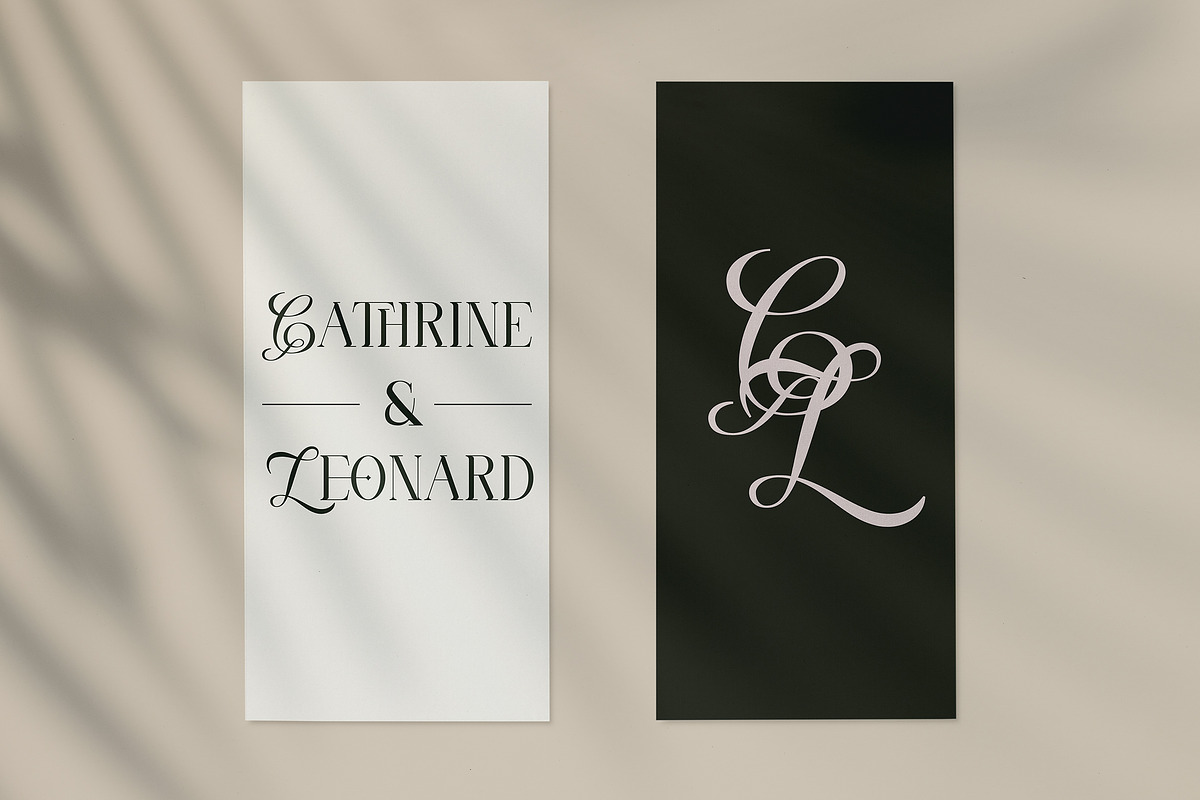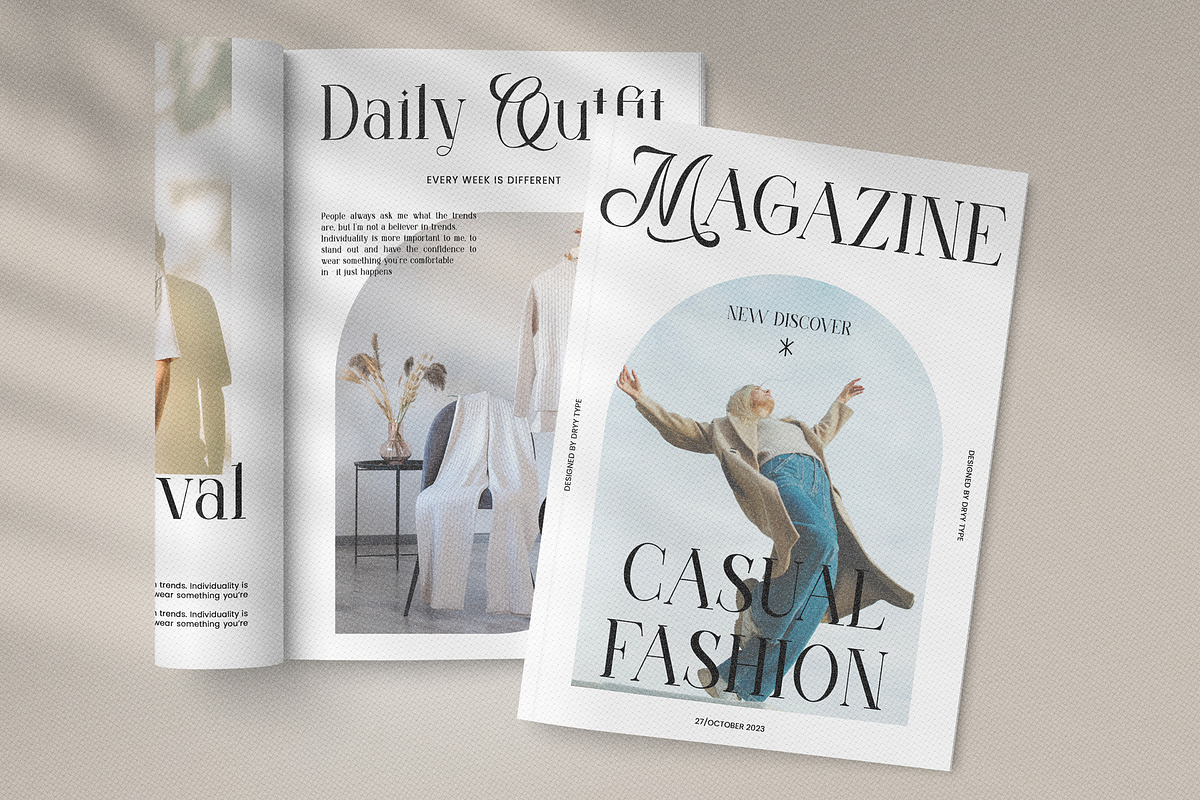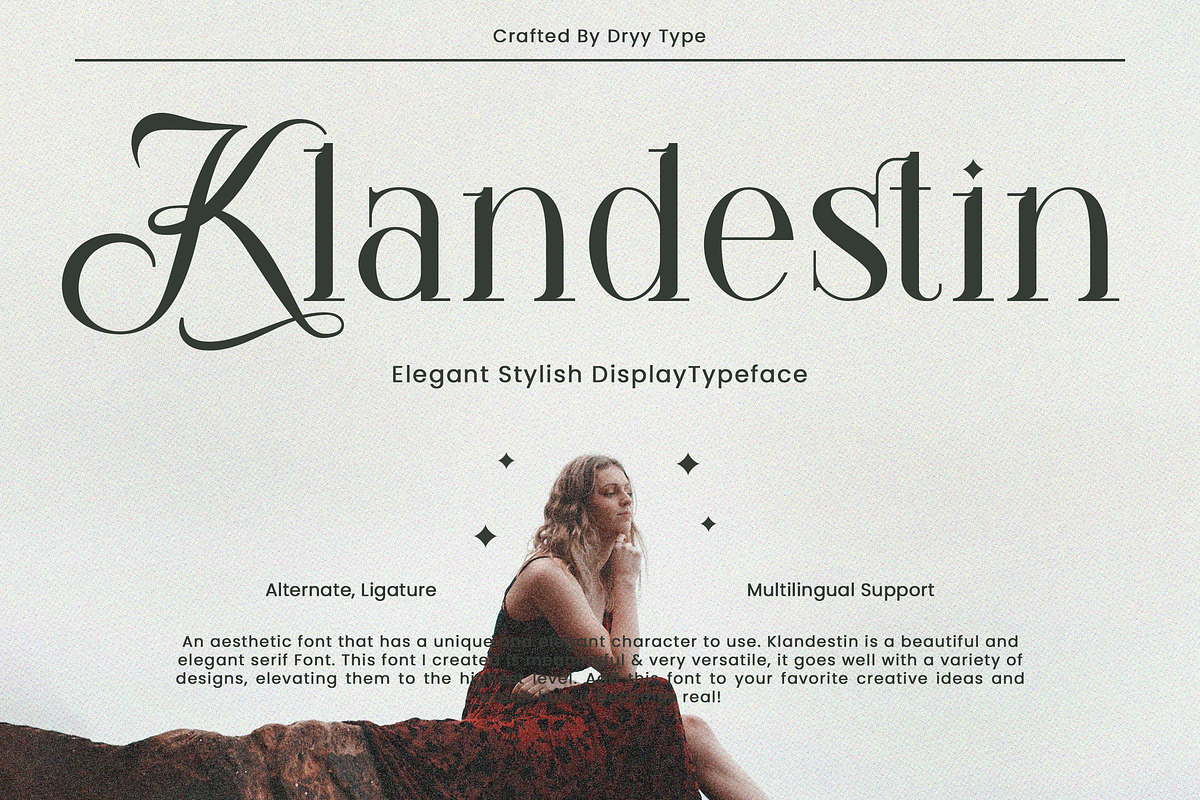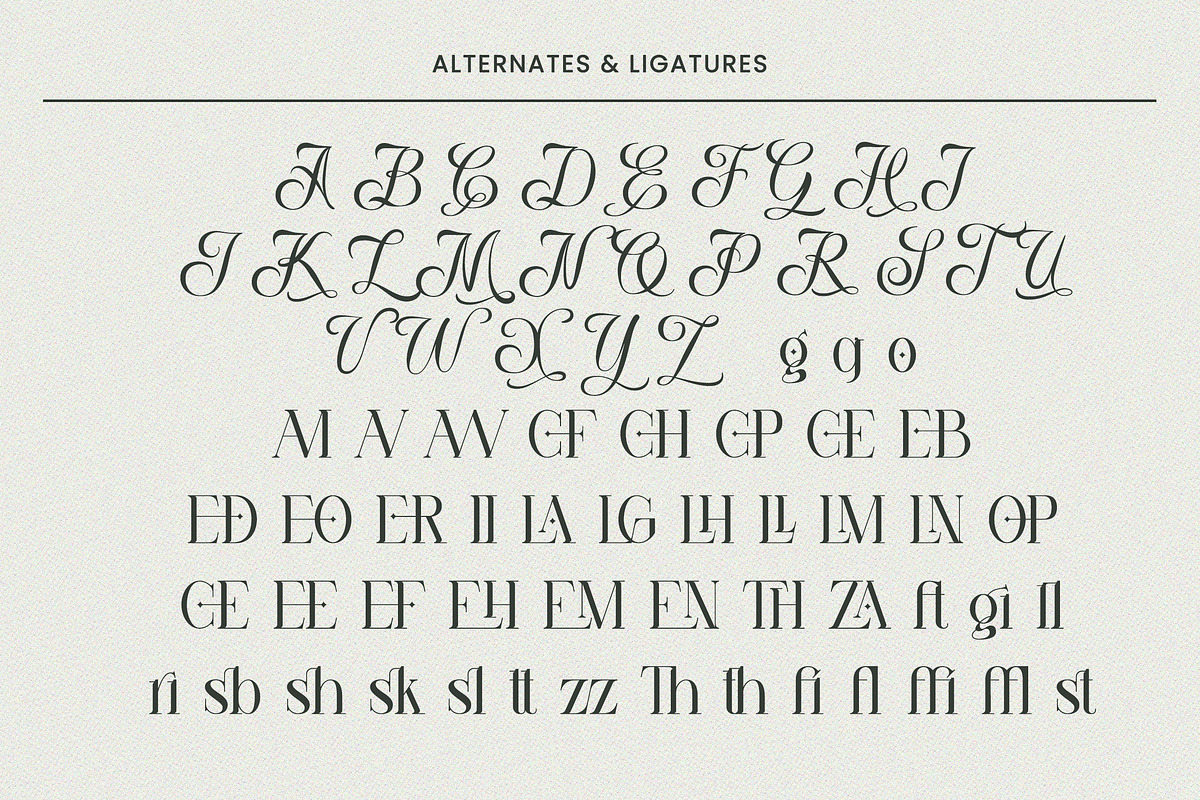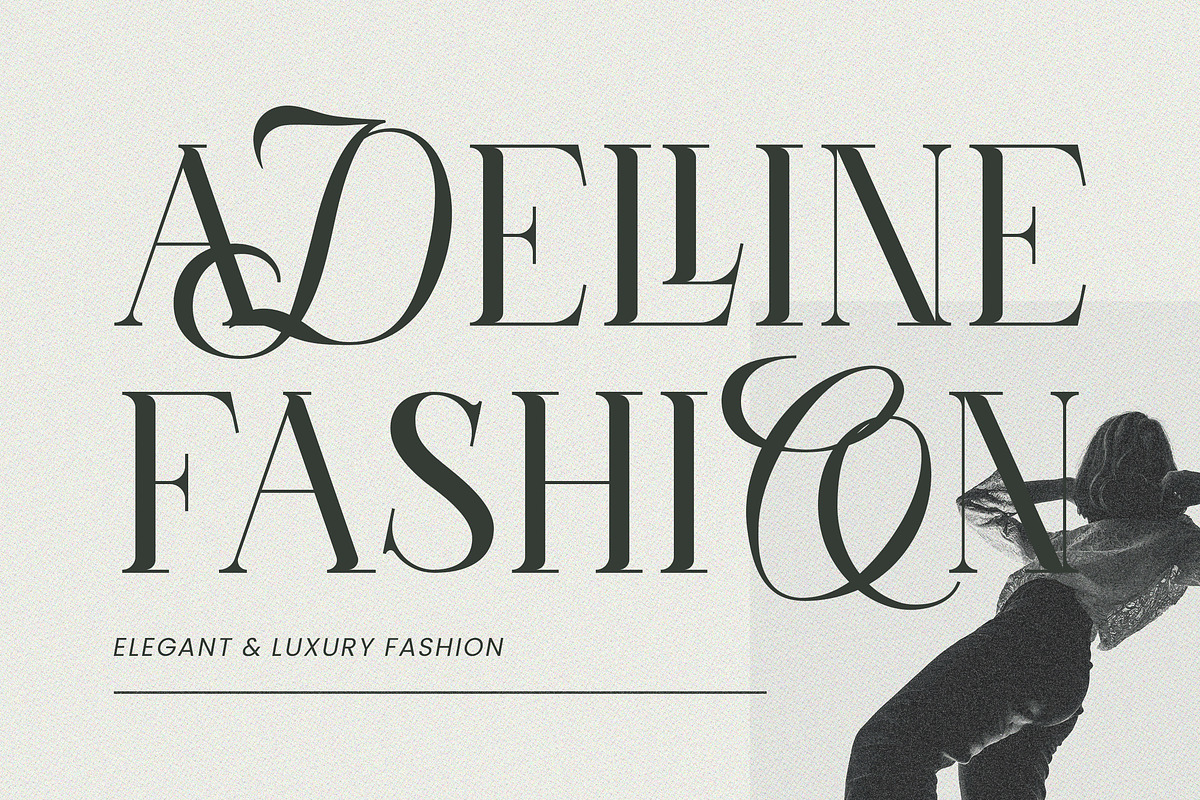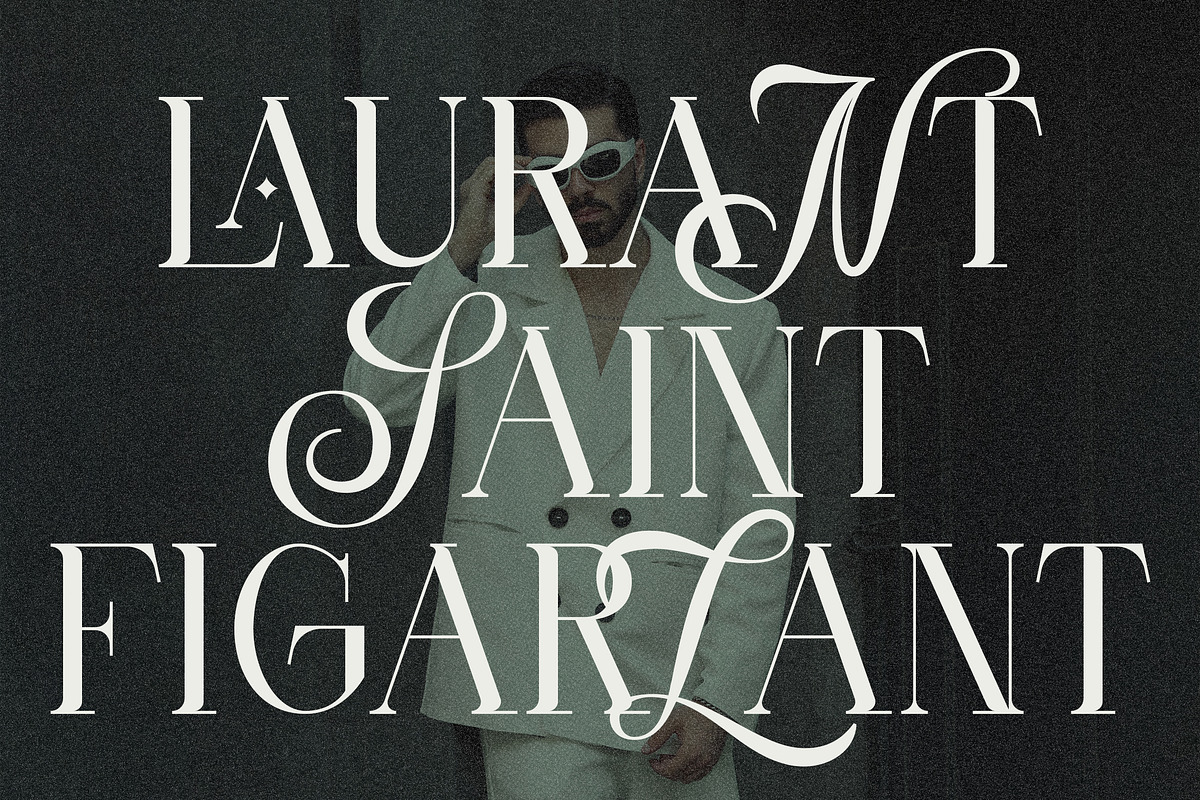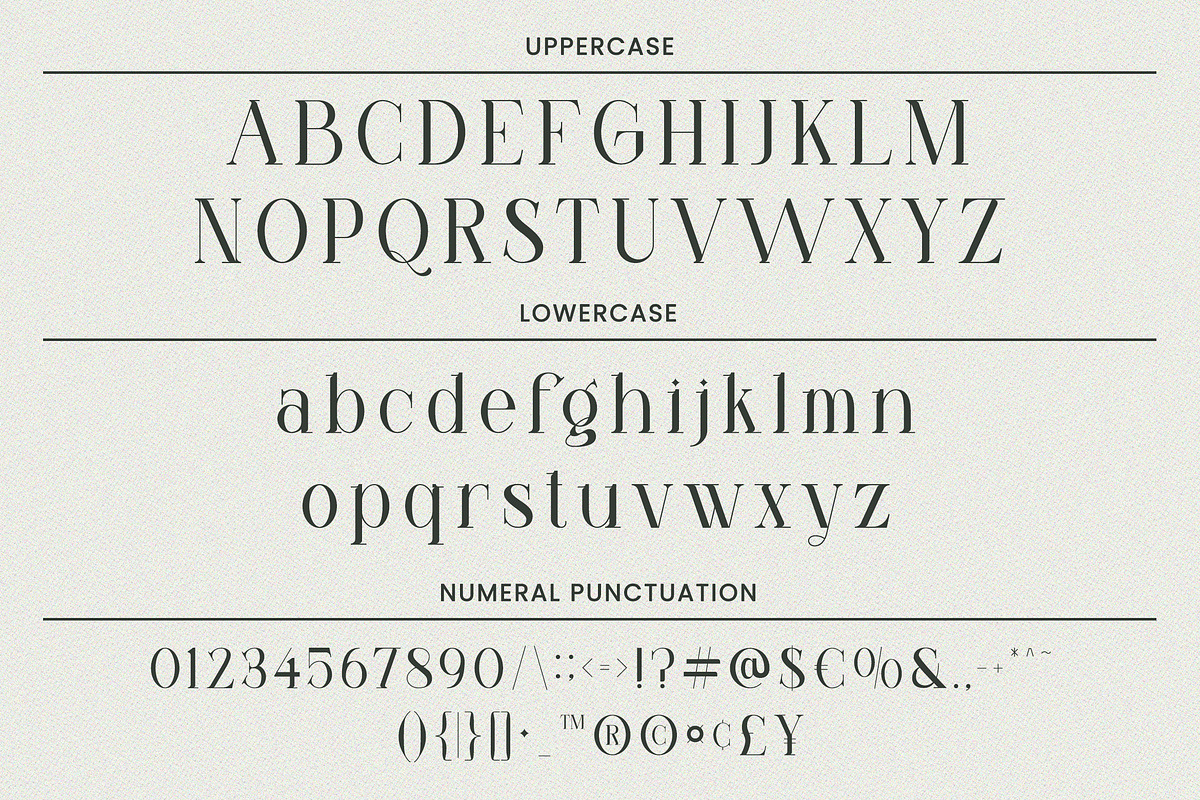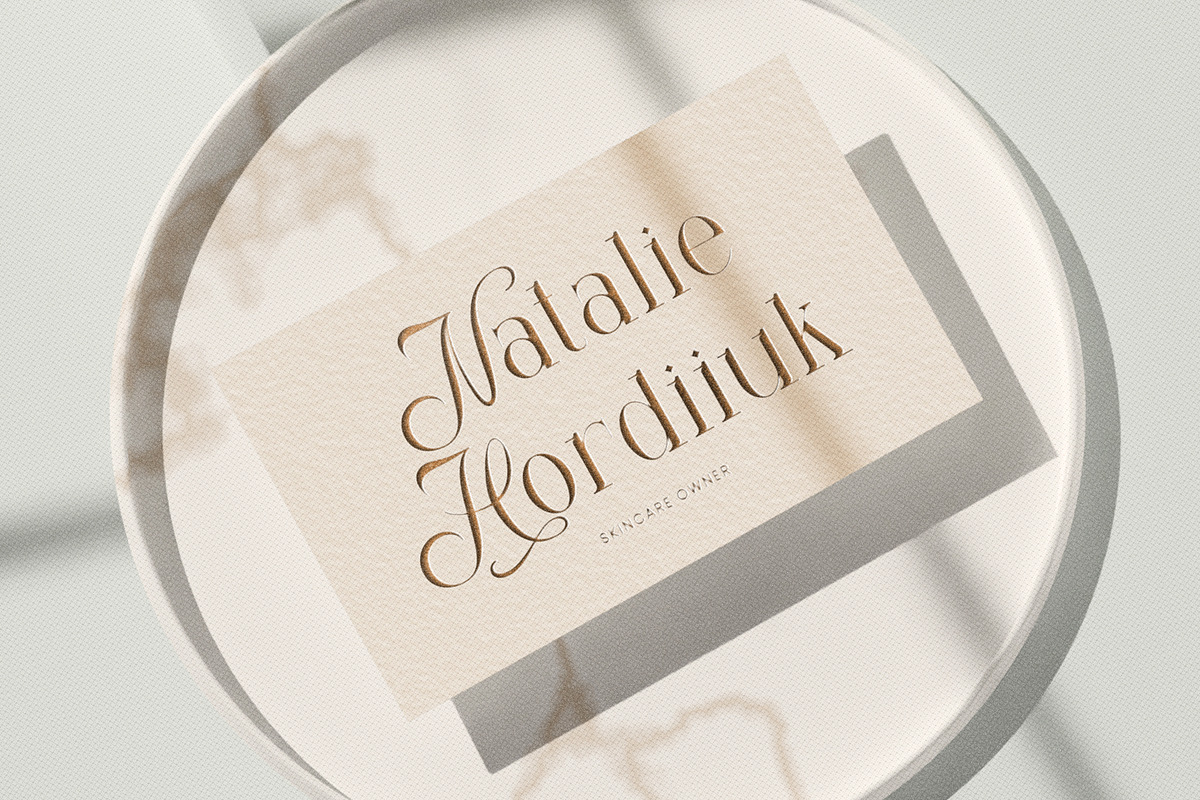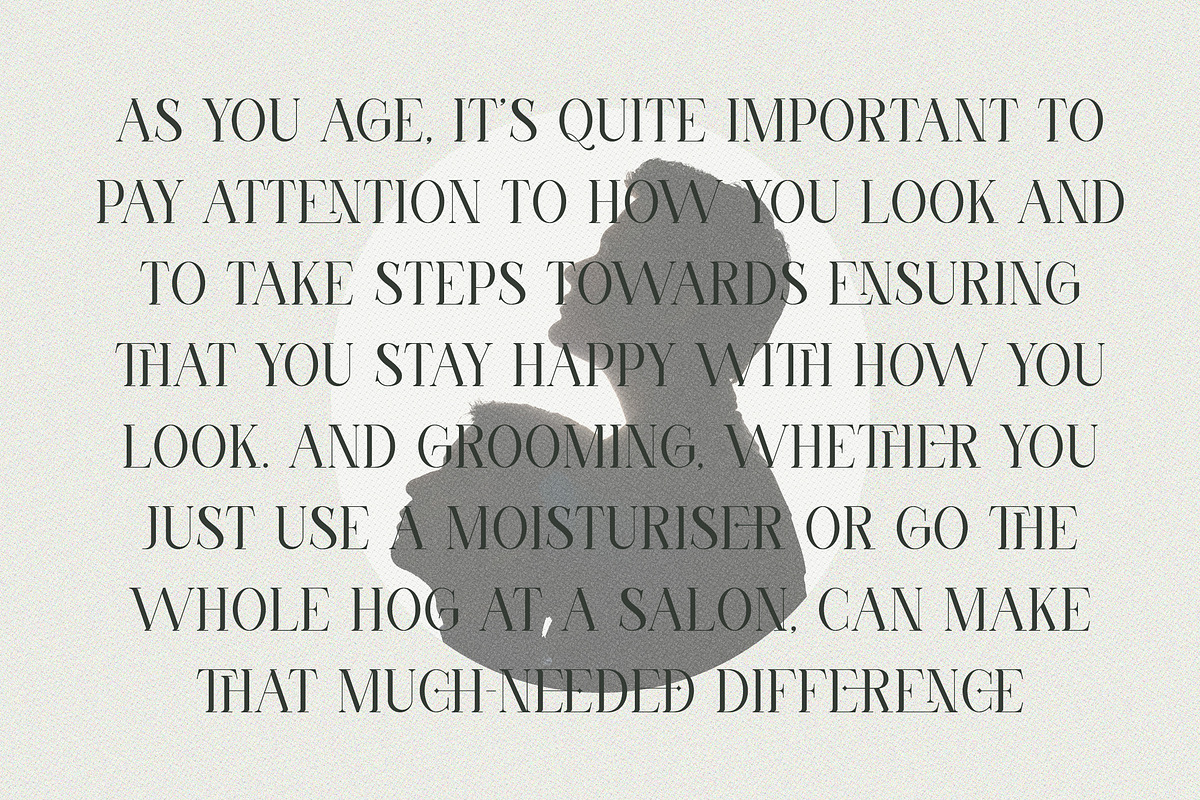
Klandestin - Elegant Serif Typeface
Klandestin Typeface
An aesthetic font that has a unique and elegant character to use. Klandestin is a beautiful and elegant serif Font with script for alternate. This font I created is meaningful & very versatile, it goes well with a variety of designs, elevating them to the highest level. Add this font to your favorite creative ideas and watch how it becomes real!
Features : Uppercase, Lowercase, Numerical, Alternates, Ligatures & Multilingual Support There it is! I really hope you enjoy it